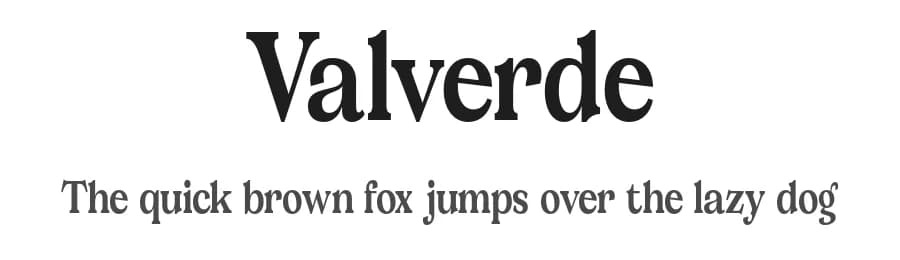
About Valverde Font
Valverde ships with 11 OpenType features you can switch on in apps that support them (Illustrator, InDesign, Affinity, Figma, CSS font-feature-settings).
- Lining figures
Valverde supports 288 languages.
Valverde Font is a versatile serif font that works for both headings and body text. Pair it with a contrasting sans-serif or slab serif font to add visual interest and a clear distinction between titles and body copy.
Valverde Font